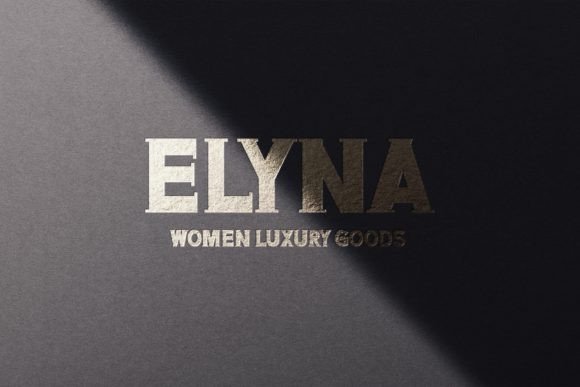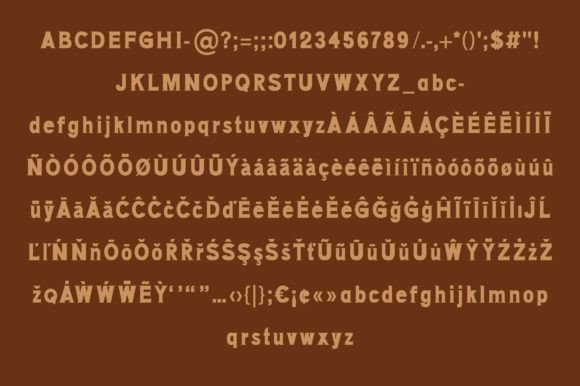
Elyna
Elyna: A Cute French-Inspired Slab Serif Typeface
Elyna, as the name suggests, is a really cute slab serif typeface derived from French culture. It can be used in a wide range of design contexts and works best when used as a display font. This versatile typeface is particularly amazing for projects related to fashion design, perfume, cosmetics, and packaging design. Use it in your creations, and you’ll notice how effortlessly it makes your designs stand out.
Key Features of Elyna
• Cute Design: Offers a charming and playful look inspired by French aesthetics.
• Slab Serif Structure: Features distinctive serifs that add character and style.
• Display Font: Ideal for headlines and large-scale text in various design contexts.
• Versatile Application: Suitable for a wide range of design projects, especially in fashion and beauty industries.
Ideal Uses for Elyna
Elyna’s unique characteristics make it particularly well-suited for:
When incorporating Elyna into your designs, consider these tips:
• Use for headlines or short blocks of text to showcase its cute and stylish features.
• Experiment with different sizes to highlight the font’s French-inspired charm.
• Utilize its versatility to create designs that evoke a sense of French elegance and sophistication.
Elyna is an excellent choice for designers looking to add a cute and French-inspired slab serif font to their typographic toolkit. Its ability to effortlessly make designs stand out makes it a valuable asset in the world of typography. Whether you’re working on fashion branding, creating packaging for beauty products, or developing content that requires a touch of French charm, Elyna offers the perfect blend of cuteness and sophistication.
Furthermore, Elyna’s unique design allows it to shine in various contexts where a touch of French elegance is desired. From perfume labels to fashion magazine layouts, this font can elevate your projects with its distinctive style. Its cute yet readable appearance works particularly well in designs that aim to convey a sense of playfulness and refinement.
In conclusion, Elyna is a font that truly captures the essence of French-inspired design with a cute twist. Its versatility across different applications showcases its adaptability to various creative needs. For those looking to add a touch of charming sophistication to their work, Elyna can enhance themed creations with its distinctive style. It’s the perfect choice for designers seeking to make a cute, stylish impact across a wide range of creative projects, especially in the fashion and beauty industries.